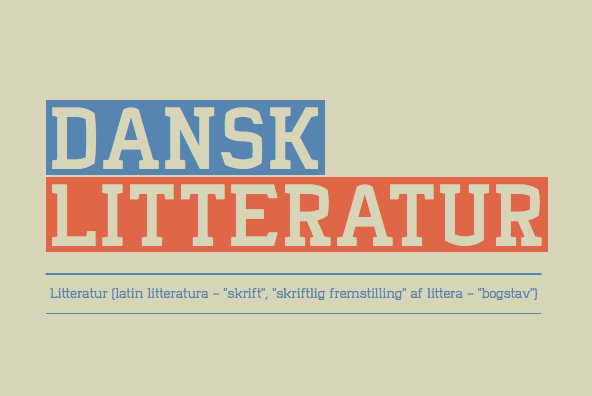
Litteratur Font
Litteratur Font is perfect for literary magazine publishing, book cover designs, poetry collection layouts, academic literary journals, creative writing program materials, library system branding, bookstore signage, and scholarly literature publications where literary excellence and intellectual sophistication are emphasized.
What makes Litteratur Font so exciting is its scholarly ability to embody the essence of literary tradition through thoughtfully crafted letterforms that capture the intellectual depth and artistic beauty of great literature while maintaining exceptional readability for extended reading. The cultured character design reflects the wisdom and aesthetic refinement that defines timeless literary works and scholarly publishing excellence.
The Litteratur Font family includes light, regular, medium, bold, and italic weights, with literary-inspired variants and scholarly ornamental elements that provide comprehensive tools for creating authentic academic branding and literary publication design systems.
This distinguished typeface represents the pinnacle of literary typography, combining classical literary tradition with contemporary publishing requirements. The Litteratur Font Free Download gives literary organizations access to typography that communicates intellectual authority and artistic sophistication.
The font's elegant character proportions and scholarly details create immediate associations with quality literature and academic publishing excellence. Each letterform has been designed to convey the intellectual rigor and artistic sensibility that defines exceptional literary work and scholarly communication.
Litteratur Font excels in creating inspiring literary communications that celebrate the written word and promote intellectual engagement. The typeface's scholarly character makes it ideal for publishers, universities, and literary organizations targeting audiences who appreciate fine literature and academic excellence.
From Norton Anthology publications to university literary reviews, this font brings literary credibility that appeals to readers, scholars, and writers committed to literary excellence and intellectual discourse. The versatile design maintains its scholarly character across both traditional academic publications and modern digital literary platforms.